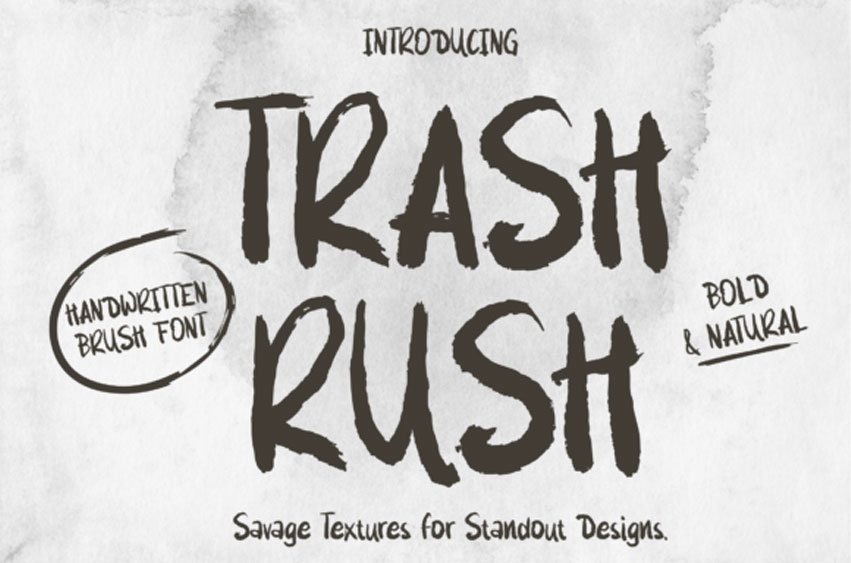
Trash Rush Font Ignite a spark of raw dynamism and genuine personality in your designs with Trash Rush – a robust, textured handwritten brush font designed for eye-catching creative exploits. Born from authentic brush strokes, each symbol exudes a natural ruggedness and inherent irregularity that breathes life into every artwork.
From artisan packaging and gig posters to gourmet branding or engaging social media content, Trash Rush is at the helm, delivering the impactful aesthetics your project deserves.
What sets Trash Rush apart in designers’ hearts is its ability to transcend your run-of-the-mill display font: Its hefty brush weight seizes attention in larger dimensions, complimented by a hand-painted texture that radiates an enticing, genuine warmth that’s impossible to achieve with synthetic imitations. Trash Rush is the font that can transform your posters from mere visuals to distinct works of art with a crafted touch.